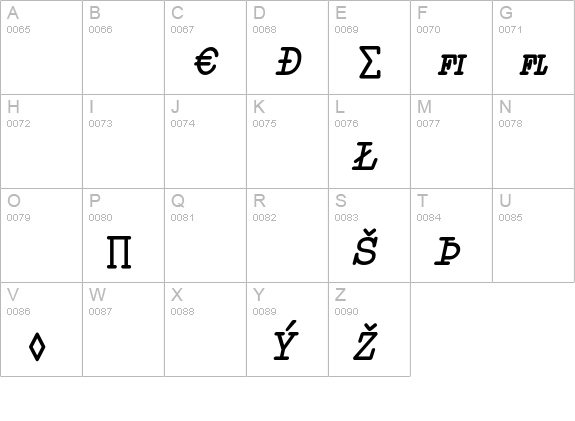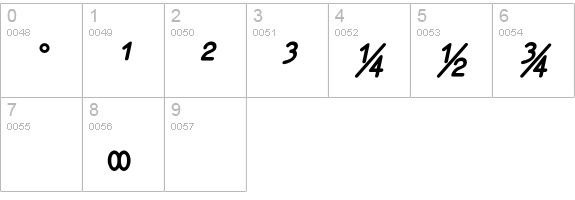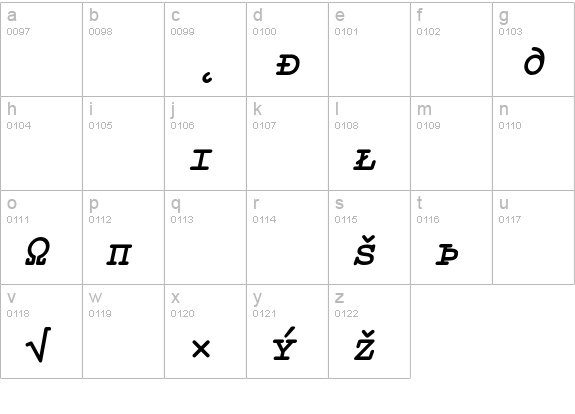
Elementa SC-Expert Bold Italic is a strong, high-contrast, italic variant in the Elementa typeface family \xE2\x80\x94 well suited to headlines, attention-grabbing titles, and strong calls-to-action.
Elementa SC-Expert Bold Italic font is a modern and sophisticated typeface that exudes elegance and professionalism. Its bold italic style adds a touch of confidence and boldness to any design project. This font is perfect for headlines, titles, and branding materials that require a strong and impactful look. What makes Elementa SC-Expert Bold Italic font even more appealing is that it is available for free download at FontsMarket.com. This means that you can easily access this high-quality font without any cost, making it a valuable addition to your font library. Whether you are a designer looking for a versatile and stylish font or a business owner in need of a striking typeface for your marketing materials, Elementa SC-Expert Bold Italic font is a fantastic choice that won't break the bank.